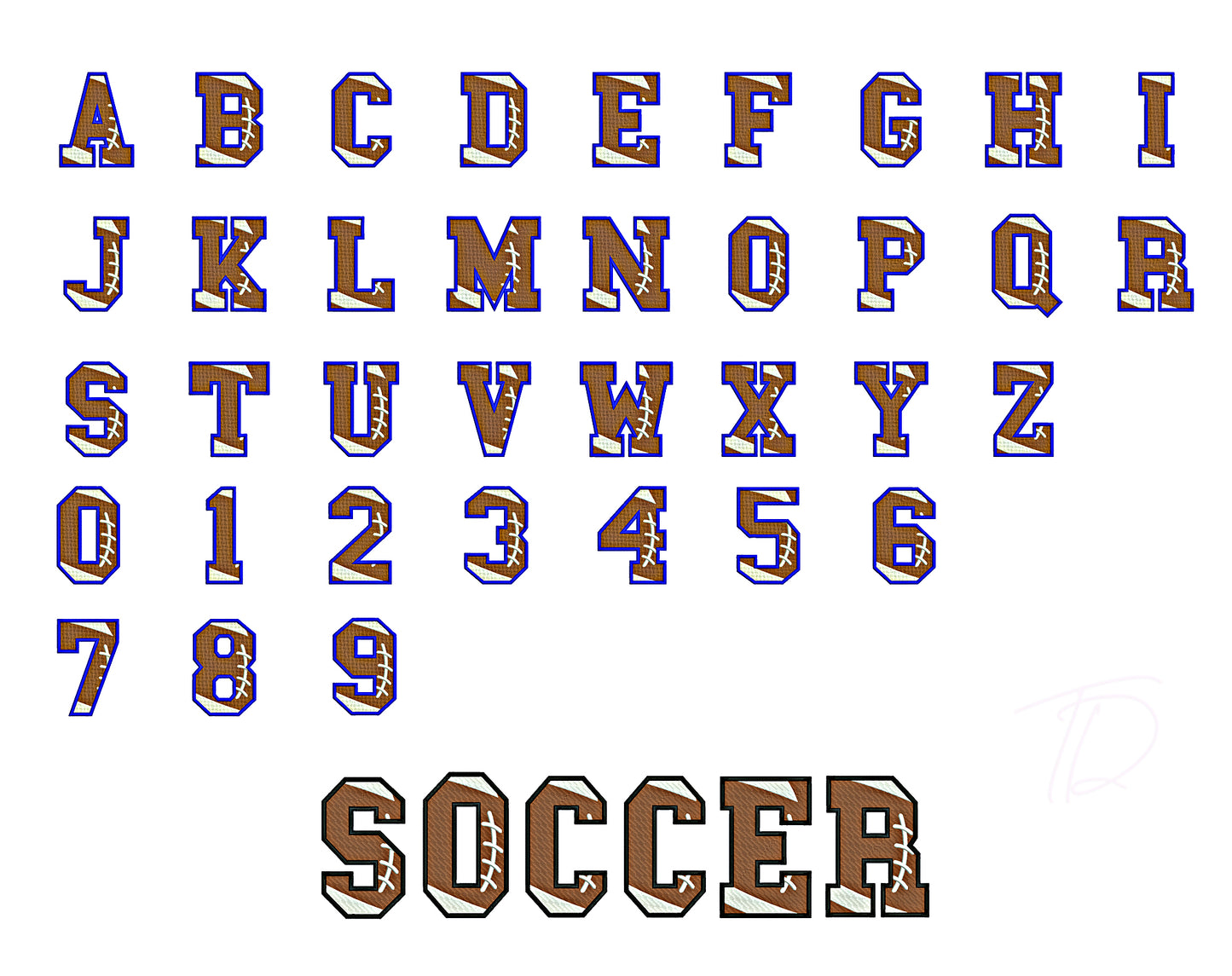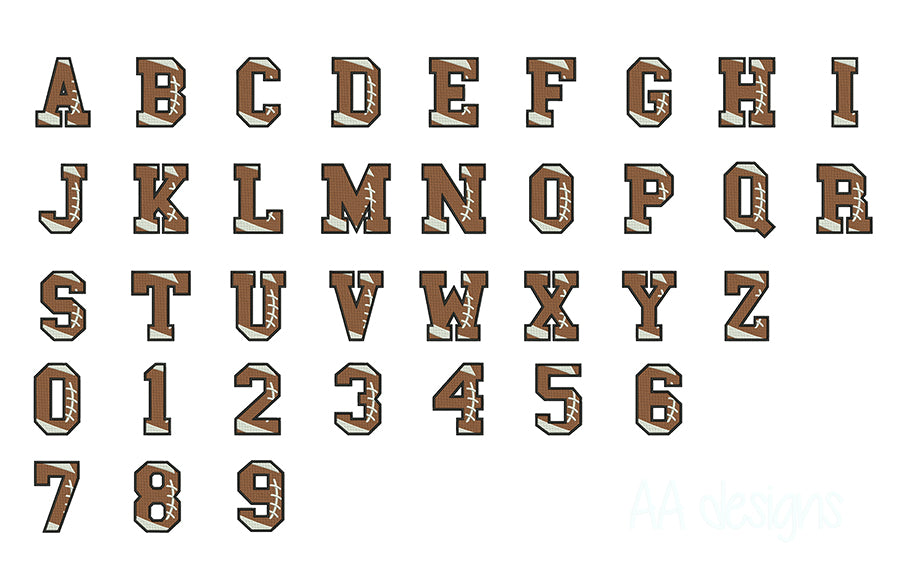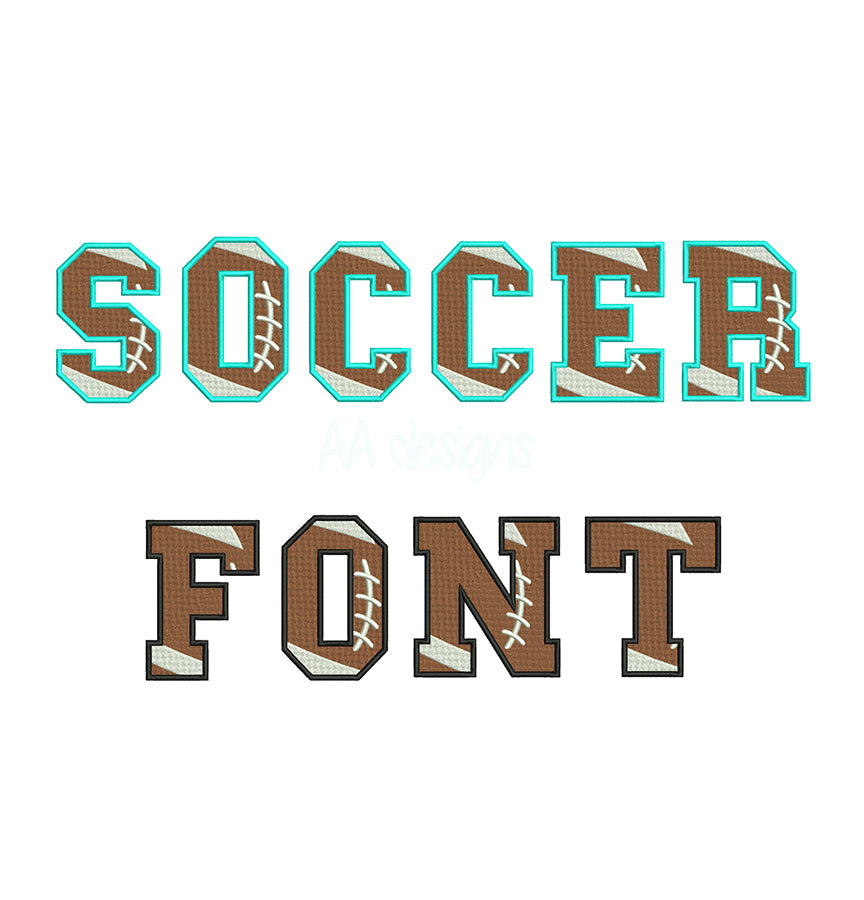
Soccer Ball Embroidery Digital Font
Kick your embroidery projects into high gear with our Soccer Ball Embroidery Digital Font — a fun, sporty alphabet where every letter is creatively styled with soccer ball-inspired design elements. A playful yet bold font that's a guaranteed crowd-pleaser for fans of all ages.
- Unique soccer ball-themed letterforms — eye-catching and full of personality
Whether you're outfitting a youth soccer team or creating the ultimate fan gift, this font brings the love of the game to life — one stitch at a time.